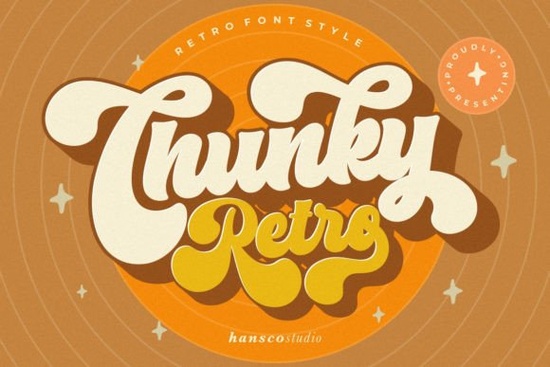
If you've been searching for a typeface that feels nostalgic without looking outdated, Chunky Retro Font might be exactly what your next project needs. It's a modern take on retro styling clean, smooth, and rounded at every corner. Whether you're working on posters, social media graphics, or product packaging, this display font brings a warm, vintage vibe that still feels fresh.
What Makes This Font Different From Other Retro Typefaces?
Most retro fonts lean heavily on sharp edges, distressed textures, or heavy grunge effects. Chunky Retro Font takes a different approach. Every letterform is deliberately rounded and soft, which gives it a friendly, approachable feel. That smoothness also makes it incredibly versatile it works just as well on a t-shirt design as it does on a bakery menu or a podcast logo.
The bold, chunky weight means it reads clearly at larger sizes, making it a solid choice for headlines, titles, and any layout where you need the text to grab attention immediately.
What Projects Work Best With a Chunky Retro Font?
This font handles a surprisingly wide range of projects. Here are a few ideas:
- Print-on-demand products mugs, tote bags, stickers, and apparel
- Social media posts Instagram stories, Pinterest pins, YouTube thumbnails
- Branding logos, business cards, and packaging for small businesses
- Craft projects greeting cards, scrapbooking, party invitations
- Event materials posters, banners, and signage
If you're building a collection of retro and vintage display typefaces, this one fills a nice gap. It's bold enough to stand on its own but clean enough to pair with simpler body text fonts.
Do You Need Design Experience to Use It?
Not at all. Its rounded, chunky shapes are forgiving they look great even if you're just starting out with typography. Print-on-demand sellers often need fonts that are eye-catching without being overly complicated, and this one fits that need well.
Small business owners creating their own marketing materials will also appreciate how readable it is. The smooth curves keep it from feeling harsh, which works nicely for brands that want to come across as warm and approachable.
Crafters and hobbyists can use it with cutting machines like Cricut or Silhouette, too. The clean, rounded edges make it easier to cut and weed compared to fonts with thin strokes or tight details.
How Does It Compare to Similar Display Fonts?
If you like the chunky, rounded style but want to explore more options, there are several related fonts worth checking out. You can browse other bold retro-style options to find the right fit for your project. Some creators also gravitate toward softer, handwritten typefaces when they want something gentler, or monogram-friendly fonts for personalized items.
Does It Work Well for Branding?
Absolutely. Rounded, retro-style fonts tend to signal friendliness and nostalgia two things that work well in branding. If your business caters to families, food, lifestyle, or handmade goods, Chunky Retro Font can help reinforce that identity without looking gimmicky.
How Should You Set It Up for Best Results?
- Use it at larger sizes. This is a display font designed for headlines and titles, not long paragraphs of body copy.
- Keep your color palette simple. The font already has visual weight, so clean backgrounds and limited colors help it stand out.
- Try it in all caps. Chunky Retro Font looks especially strong in uppercase for maximum impact on posters and apparel.
- Experiment with letter spacing. A little extra tracking can give it a more polished, editorial look.
- Test it in your actual layout before finalizing what looks great in a preview might need size or weight adjustments in context.
Chunky Retro Font is a solid, no-fuss option for anyone who wants retro character without the clutter. If your designs call for something bold, friendly, and easy to work with, it's well worth adding to your font library.